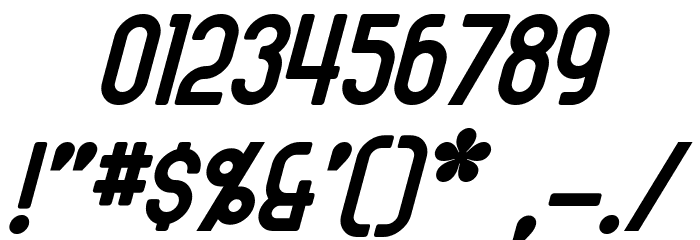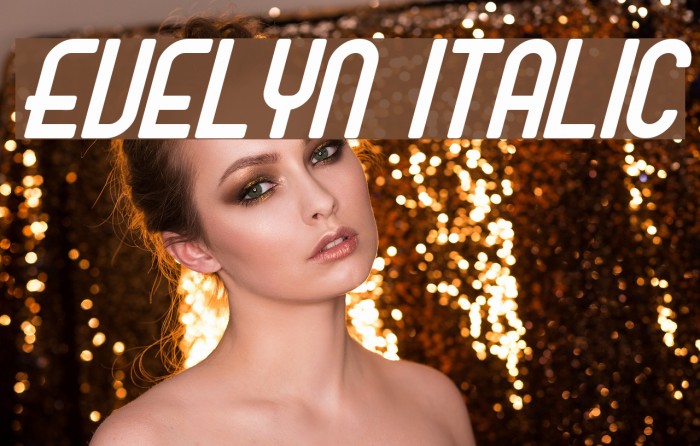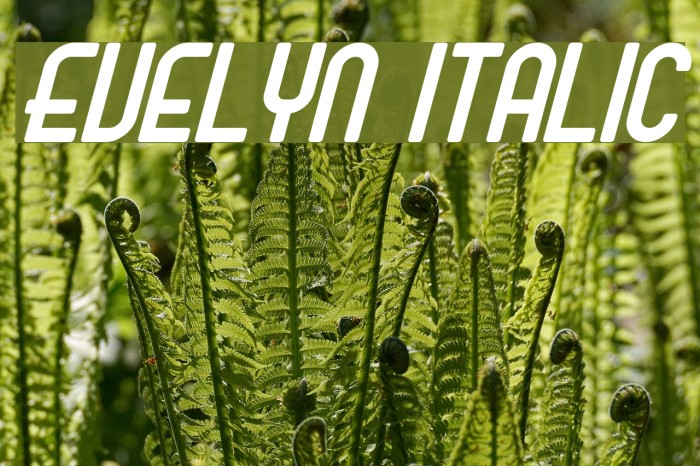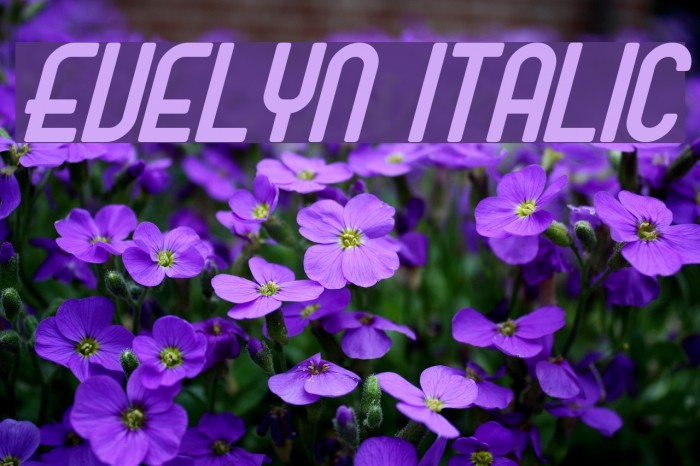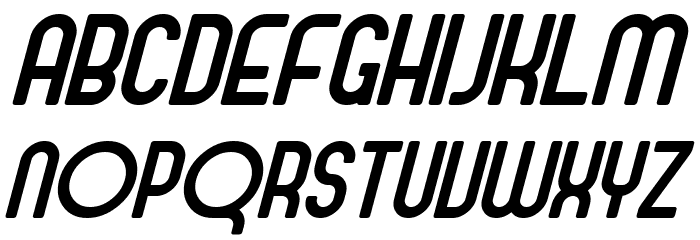
Evelyn Italic Font
This font features a sleek, italicized design with smooth, flowing curves and a modern aesthetic. The characters are slightly condensed, giving it a compact appearance while maintaining readability. The strokes are consistent in weight, providing a uniform look across all characters. The font includes both uppercase and lowercase letters, numerals, and a variety of special characters, making it versatile for various applications. Its italic style adds a sense of motion and dynamism, suitable for projects that require a contemporary and stylish touch.
A sleek, italicized font with smooth curves and a modern aesthetic.
• Proposed Projects: Ideal for branding, advertising, and editorial design projects that require a modern and dynamic look.
• Category: Sans-Serif
• Bold: No
• Italic: Yes
• Weight: Regular
• Width: Condensed
• Character Spacing: Normal
• Contrast: Low
• Overall Style: Modern
• Use Case: Headlines, Logos, Branding